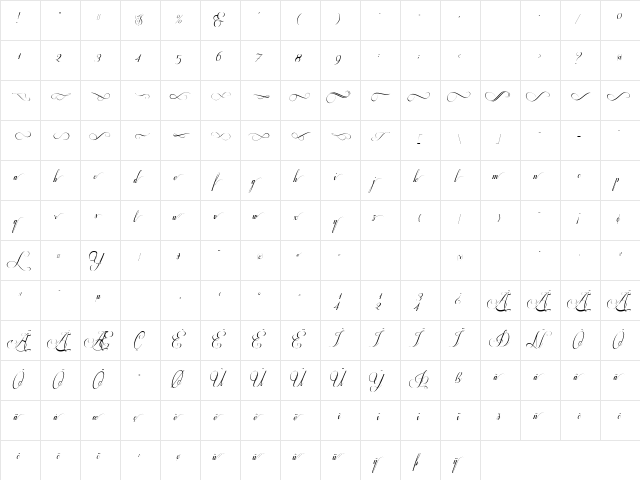
Respective 2.0 Swashes Regular
| Foundry | M害 Greb䣫 |
| Designer | M害 Greb䣫 |
Design Context for Respective 2.0 Swashes Typeface
Respective 2.0 Swashes flows with the natural rhythm of handwritten lettering, making it ideal for designs that call for warmth and personal expression.
Font Pairing: Combine Respective 2.0 Swashes with a simple geometric sans for maximum contrast — the tension between flowing curves and clean structure is a classic typographic pairing.
Pro Tip: Use Respective 2.0 Swashes for short runs of text — names, titles, or taglines. Extended body copy in script faces tires the eye quickly.